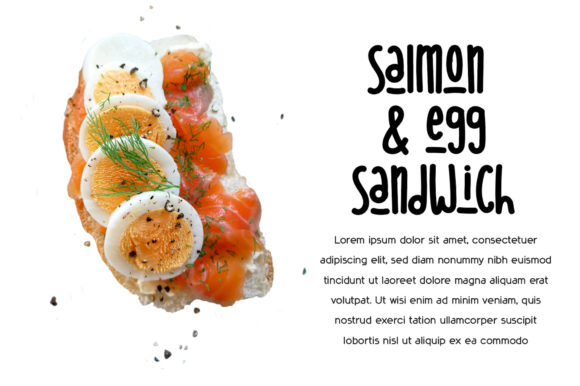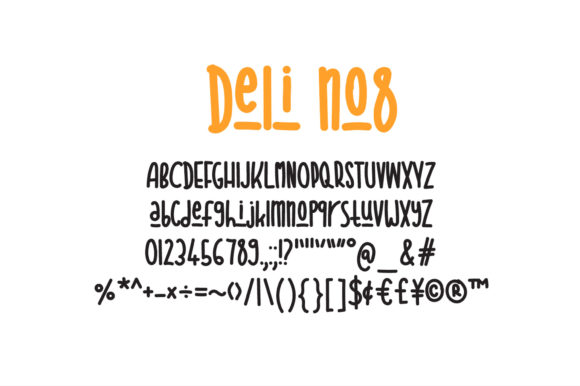
Introduction to DeliNo8 Font
Have you ever been rummaging through a vintage market or antique shop, searching for the perfect chalkboard sign to add a touch of whimsy to your creative project? That’s exactly where I found myself last weekend, surrounded by eclectic trinkets and dusty relics. And then, it hit me – the perfect font to bring my chalkboard quotes to life: the DeliNo8 Font!
As a designer, I know how crucial it is to have high-quality design resources at our fingertips. And let me tell you, the DeliNo8 Font is a game-changer. Its authentic, handwritten look is not only free to download, but also offers a transparent background, making it perfect for adding a personal touch to your designs.
Whether you’re working on a creative project or teaching material, the DeliNo8 Font is sure to add a unique and realistic feel to your work. So why settle for a generic font when you can have a one-of-a-kind design resource like the DeliNo8 Font?
Key Features of DeliNo8 Font
- It comes with a transparent background, making it easy to use in different design contexts.
- DeliNo8 Font is designed to be highly versatile, with a unique blend of modern and vintage elements.
- The font includes a wide range of characters, including uppercase and lowercase letters, numbers, and punctuation marks.
- DeliNo8 Font is suitable for a variety of design applications, including logos, graphics, and text-based designs, at a high resolution of 300 DPI.
Honest Review: DeliNo8 Font
I recently stumbled upon the DeliNo8 Font while searching for a high-quality font to use in a creative project. I was pleased to find that it’s available for a free download, which made it an instant favorite.
One of the standout features of this font is its versatility. It’s perfect for a wide range of design projects, from logos to print materials. I particularly appreciate the transparent background option, which allows for seamless integration with my design.
Here are some of the things that work well for me:
- ✨ High-quality design that’s perfect for professional projects
- ✨ Versatile font that’s suitable for various design applications
- ✨ Transparent background option for easy design integration
However, I do have a few limitations to note:
- ⚠️ Limited font styles (only a few variations available)
- ⚠️ Not suitable for large-scale or complex designs
Overall, I’m impressed with the DeliNo8 Font and would recommend it as a design resource for any creative project. While it may have some limitations, its high-quality design and free download make it a valuable addition to any designer’s toolkit.
The DeliNo8 Font is a high-quality design resource that can be used in various creative projects, including business cards, logos, and social media graphics. Its transparent background makes it easy to overlay on different backgrounds. Some common use cases include:
- Creating eye-catching social media graphics
- Designing professional business cards and logos
- Developing engaging presentations and documents
Does the DeliNo8 Font have a transparent background?
Yes, the DeliNo8 Font has a transparent background, making it ideal for use on images or designs with complex backgrounds. This feature allows for seamless integration and ensures that your design looks professional and polished.